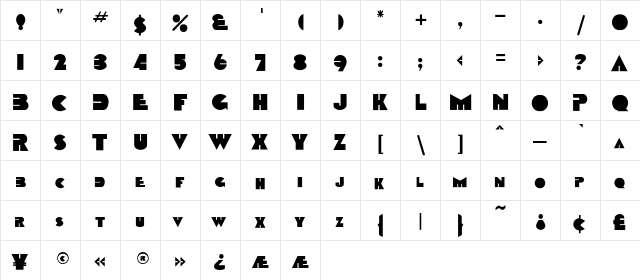
Sharktooth-Normal Regular Font Preview
Sharktooth-Normal Regular
Sharktooth-Normal Regular Font Details
Design Context for Sharktooth-Normal Typeface
Sharktooth-Normal is a composed and adaptable typeface that performs quietly and consistently across a wide range of design contexts.